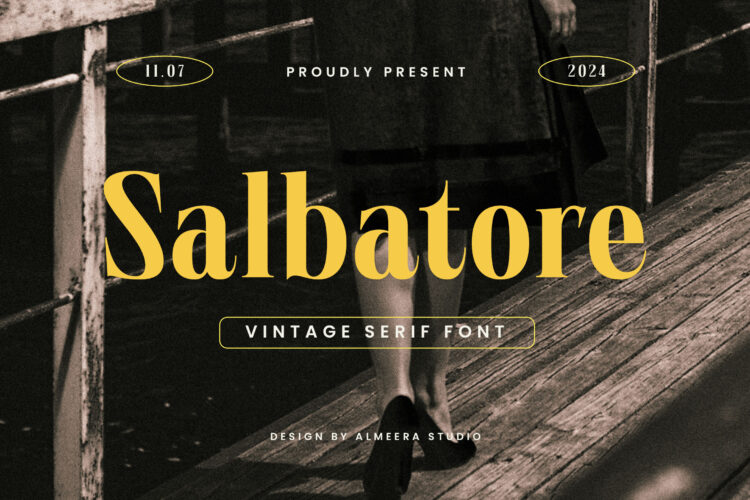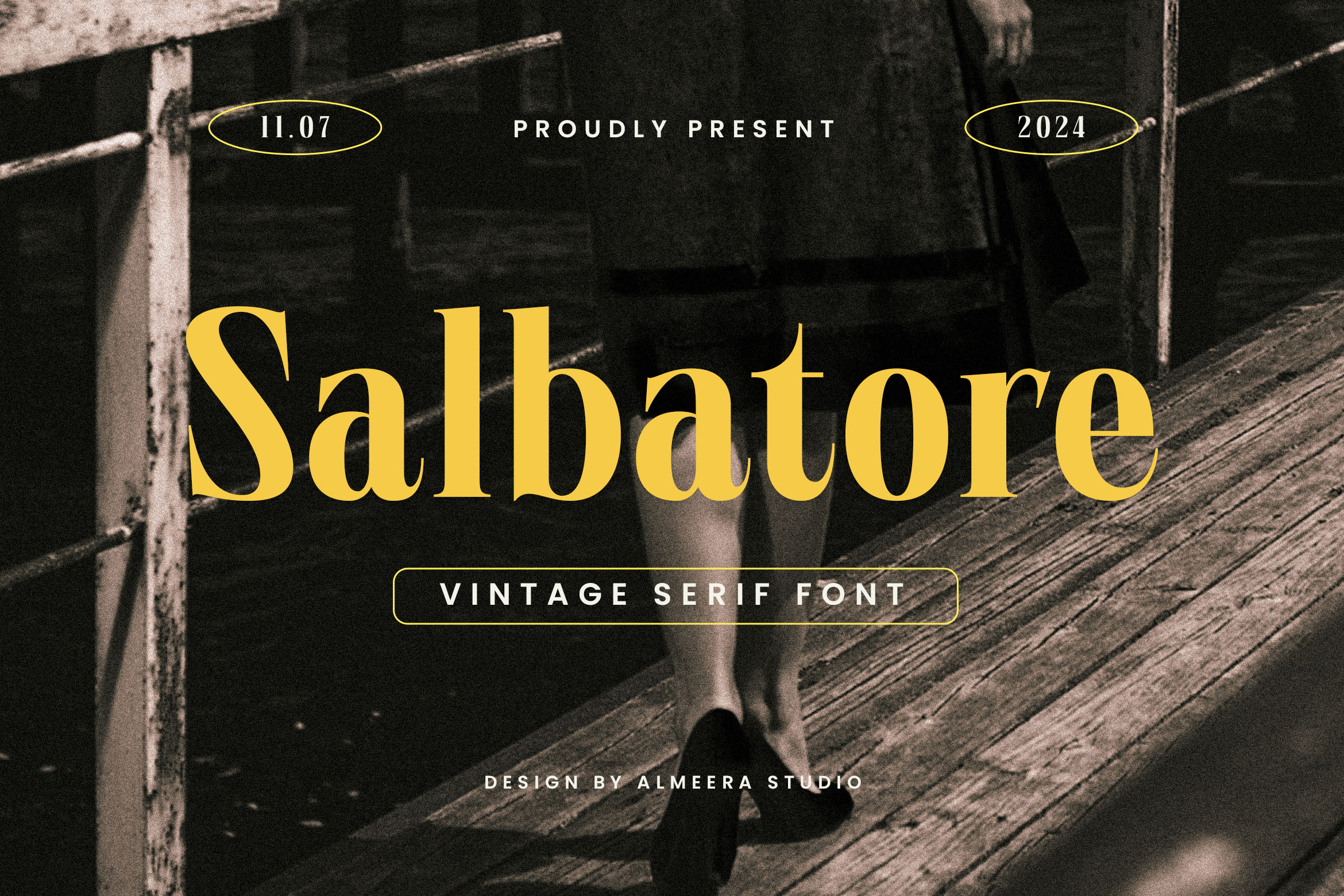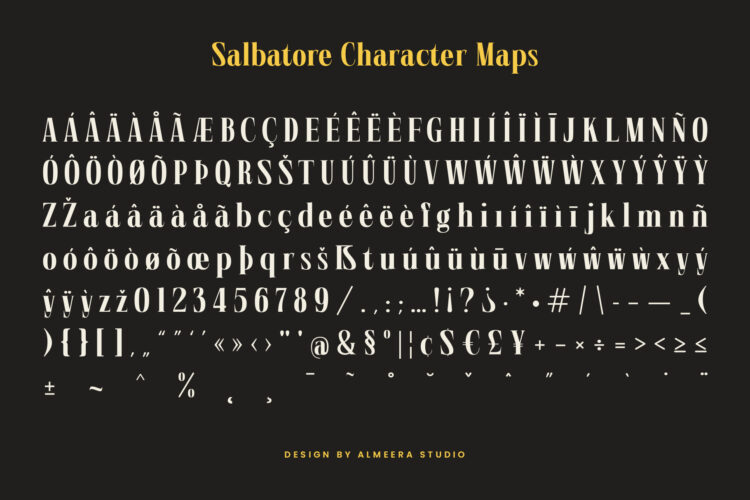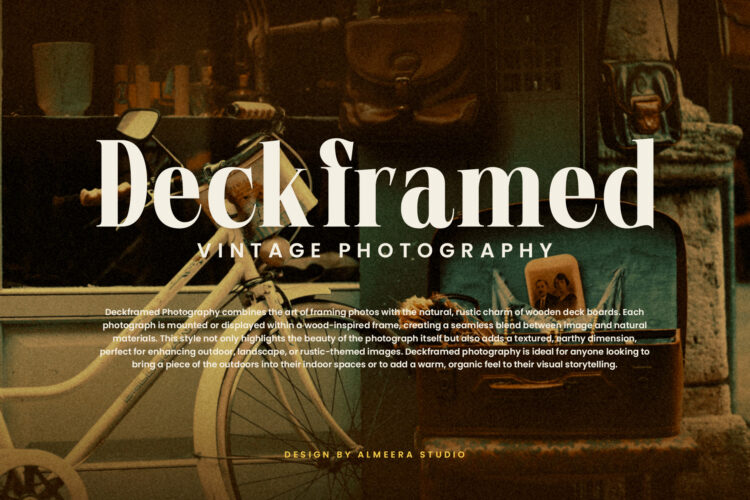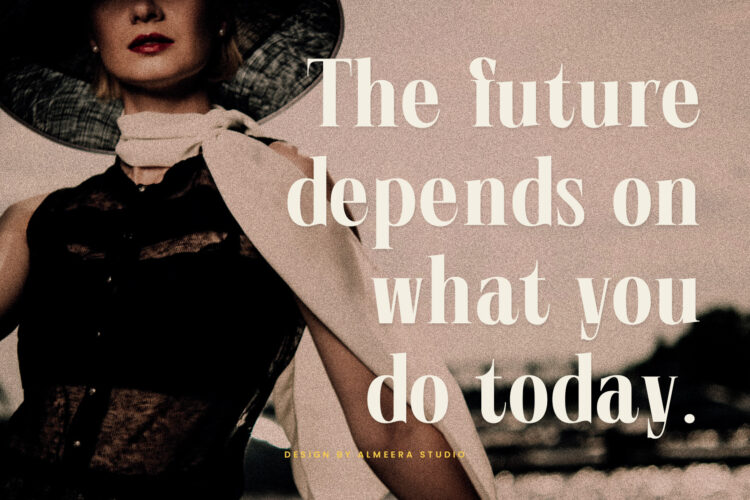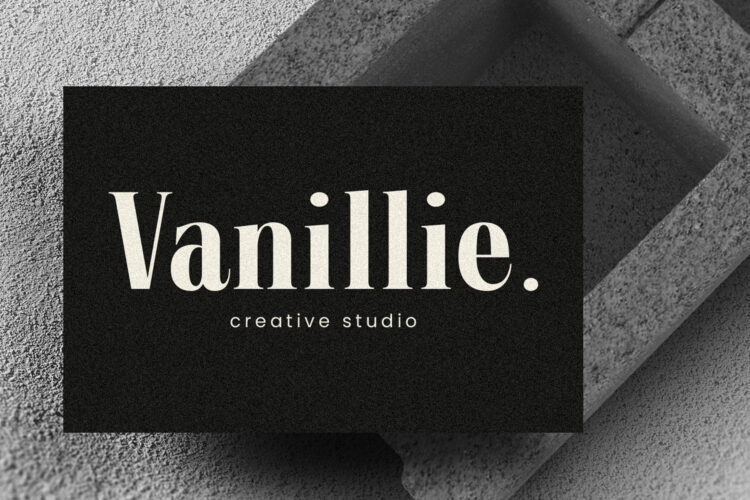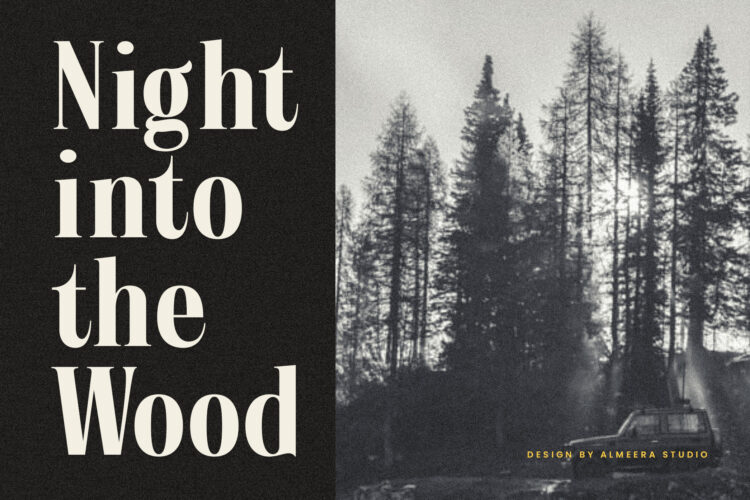
Introducing Salbatore – Vintage Serif. Salbatore is a Vintage Serif Font, elegant and simple font, best used as a display for headings, logos, branding, magazines, product packaging and invitations.
– Symbols
– Multilingual Support